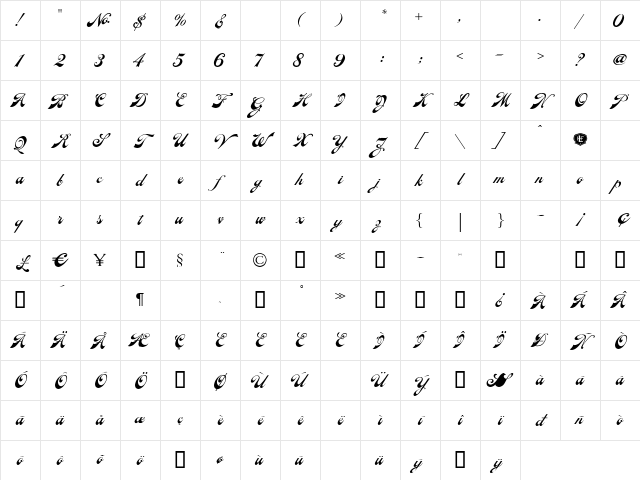
Ephemera Regular LHF Regular
Design Context for Ephemera Regular LHF
Ephemera Regular LHF is a composed and adaptable typeface that performs quietly and consistently across a wide range of design contexts.